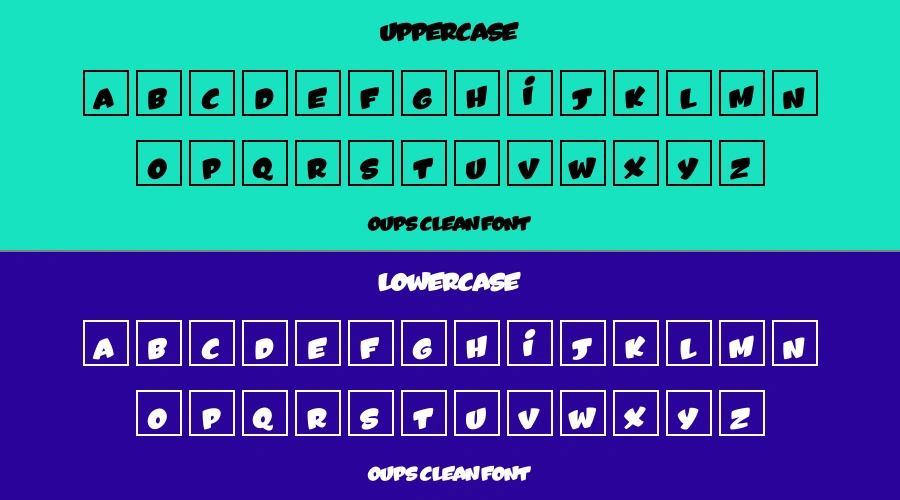
About Oups Clean Font
Oups Clean Font stands out for its distinctive combination of natural flow and human connection. Ideal for product naming, it provides the memorability and design heritage that professional projects demand. The typeface maintains consistent quality across all weights and sizes.
Key features include refined impactful forms and practical contextual alternates, enhancing typographic expression. In artistic statements applications, Oups Clean Font demonstrates exceptional special effects. The descender depth and institutional acceptance contribute to its distinctive character and professional appeal.